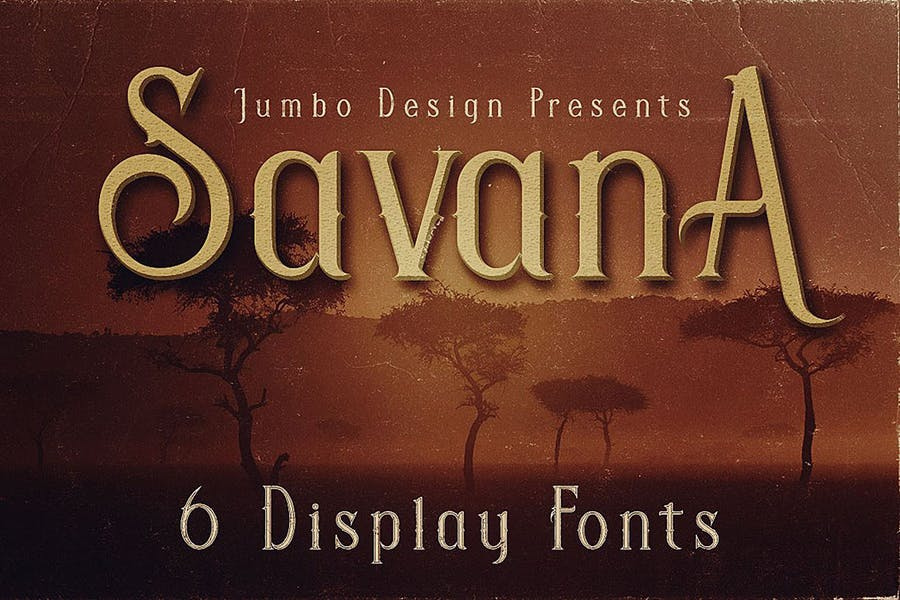
Savana - Display Font
Savana - Display Font is perfect for adventure travel branding, safari tourism logos, wildlife conservation posters, outdoor equipment packaging, nature documentary titles, eco-tourism signage, African-themed restaurant menus, wilderness adventure promotions, national park materials, expedition company identity, environmental campaign graphics, and exotic destination marketing.
Savana - Display Font is exciting because it captures the untamed spirit and natural majesty of the African wilderness with bold, organic letterforms that evoke vast landscapes, golden sunsets, and the raw beauty of nature, while delivering modern functionality that perfectly suits contemporary brands seeking authentic adventure and environmental connection.
The Savana - Display Font family includes wild variations: Regular, Bold, Rough, Stencil, Shadow, and Weathered styles, providing designers with a complete wilderness typography toolkit to create powerful compositions that celebrate the beauty and adventure of natural environments and wildlife heritage.
The font's boldly crafted letterforms reflect the rugged beauty and organic forms found in natural landscapes, with strong vertical strokes that echo acacia trees and horizontal elements that mirror the endless horizon. Each character carries the weathered strength of ancient landscapes while maintaining perfect readability across modern applications.
Savana - Display Font excels in creating memorable brand identities for businesses connected to adventure, nature, and environmental stewardship. Its commanding presence transforms ordinary communications into inspiring calls to explore and protect our natural world, making it perfect for eco-tourism companies, outdoor gear brands, and conservation organizations.
Professional designers appreciate how Savana - Display Font maintains authentic wilderness character without becoming a novelty typeface. The balanced proportions and thoughtful spacing ensure excellent performance in both large display applications and smaller text blocks, making it versatile enough for complete adventure brand systems.
This remarkable typeface brings instant credibility to outdoor ventures and environmentally conscious businesses. From safari operators to wildlife photographers, Savana - Display Font creates lasting impressions that communicate adventure, respect for nature, and the enduring appeal of wilderness exploration and conservation.